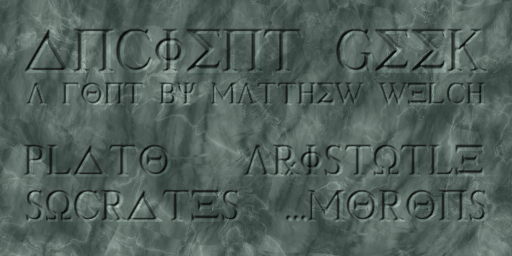
Preview and download Ancient Geek Font. Created by Matthew Welch in Foreign look Roman, Greek styles with 100% Free license.
Have you ever tried to read Greek lettering pronouncing each letter like the latin letter it looks like instead of how the Greek letter is supposed to be pronounced? That is what this font is based on. I took all the Greek letters and matched them up with the latin alphabet letters they look like. I threw out all the letters that didn't look like anything and filled in the remaining characters with the regular latin alphabet. The result is that you can type out a phrase and it will look like Greek lettering while being perfectly readable English. |